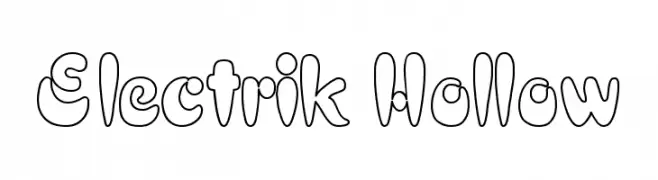
( Zachary Lucier )
A classic typewriter-style font with monospaced, evenly spaced characters.
A bold, high-contrast font with elegant curves and sharp angles.
( Fonts by Origin Type )
Bold, playful handwritten font.
A modern, bold sans-serif font with a clean and uniform design.
( Fonts by Nicole Daugherty )
A bold, playful handwritten font with rounded, thick strokes.
A modern, elegant serif font with a slightly condensed style.
( Manu Sanz - www.manusanzdesign.com )
A modern, geometric font with clean lines and rounded edges.